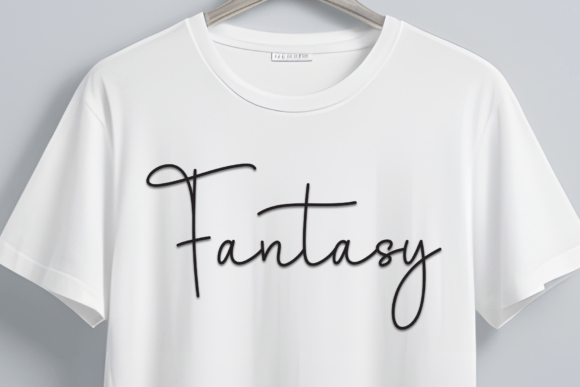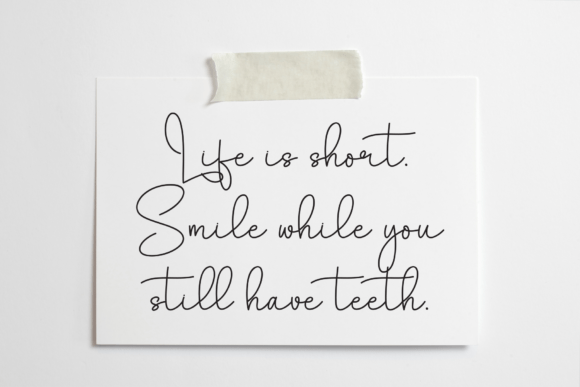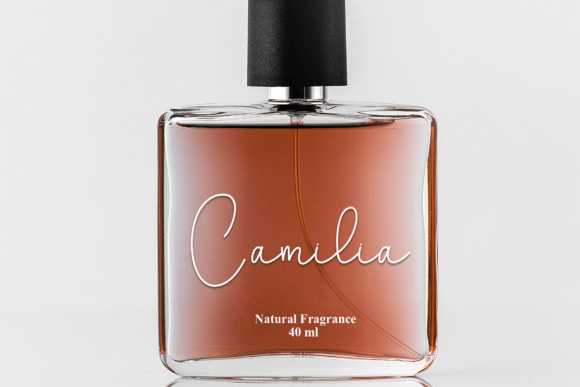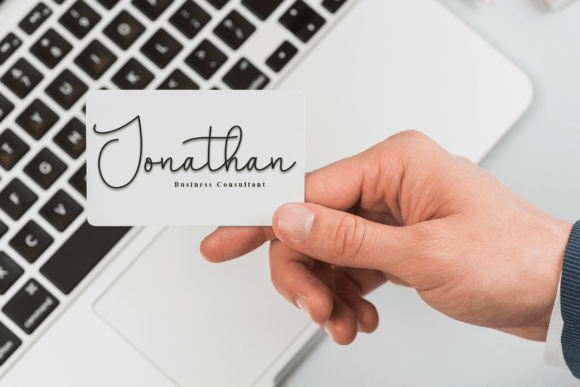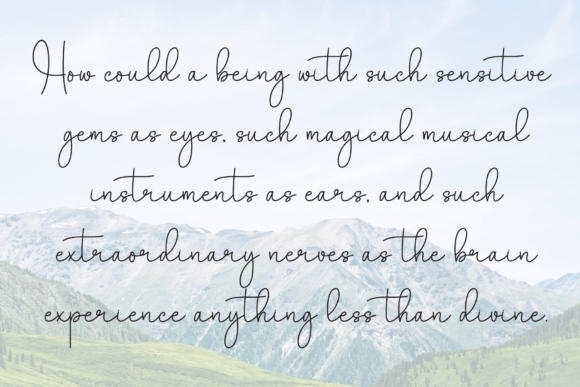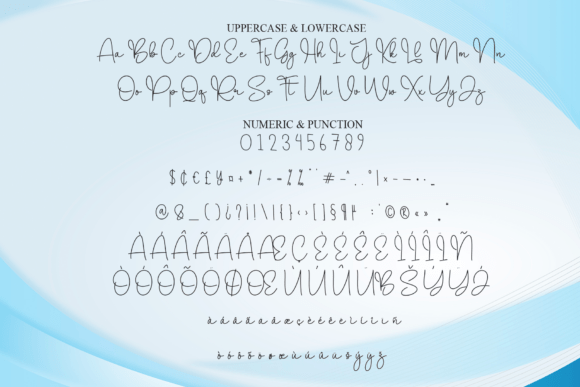
Introducing Background Font: The Charming Script for Elegant Designs
In the world of typography, a well-chosen font can elevate your design from ordinary to extraordinary. If you’re looking for a script that exudes elegance, sophistication, and a touch of whimsy, look no further than Background Font. This charming handwritten font is designed to bring a personal, elegant touch to your designs, making it perfect for a variety of creative projects.
The Characteristics of Background Font
Background Font boasts smooth curves, a natural flow, and a slightly casual style that gives it a unique, approachable feel. Its elegant lines and refined aesthetic make it an excellent choice for designs that require a touch of sophistication. The font’s subtle imperfections and organic feel make it appear as if it was written with care, adding a personal touch to your designs.
Ideal Uses for Background Font
Background Font’s versatility makes it suitable for a wide range of design applications. Some of the most popular uses for this charming script include:
- Wedding Invitations: Add a touch of romance and elegance to your wedding invitations, save-the-dates, and other wedding-related designs.
- Personal Branding: Use Background Font to create a sophisticated and memorable brand identity that reflects your personal style.
- Greeting Cards: Whether it’s a birthday, anniversary, or holiday card, Background Font is the perfect choice for adding a personal touch.
- Lifestyle Blog Graphics: Elevate your blog’s visual aesthetic with Background Font, perfect for headings, titles, and other design elements.
Romantic and Modern Aesthetics
One of the standout features of Background Font is its ability to seamlessly transition between romantic and modern aesthetics. Its elegant lines and refined aesthetic make it perfect for designs that require a touch of sophistication, while its slightly casual style keeps it feeling approachable and fresh.
Whether you’re designing a vintage-inspired wedding invitation or a modern lifestyle blog graphic, Background Font is the perfect choice. Its versatility allows it to pair well with a variety of design elements, from intricate illustrations to bold typography.
Tips for Using Background Font
To get the most out of Background Font, here are a few tips to keep in mind:
- Pair with contrasting fonts: Combine Background Font with a bold, sans-serif font to create visual interest and add depth to your design.
- Experiment with colors: Background Font looks stunning in a variety of colors, from soft pastels to rich jewel tones. Don’t be afraid to experiment and find the perfect hue for your design.
- Use it sparingly: While Background Font is beautiful, it’s best used sparingly. Use it for headings, titles, or other design elements to add a touch of elegance.
Background Font is a charming script handwritten font that’s perfect for designers and crafters looking to add a personal, elegant touch to their designs. Its smooth curves, natural flow, and slightly casual style make it ideal for a variety of creative projects, from wedding invitations to lifestyle blog graphics. With its versatility and romantic yet modern aesthetic, Background Font is sure to become a staple in your design toolkit.